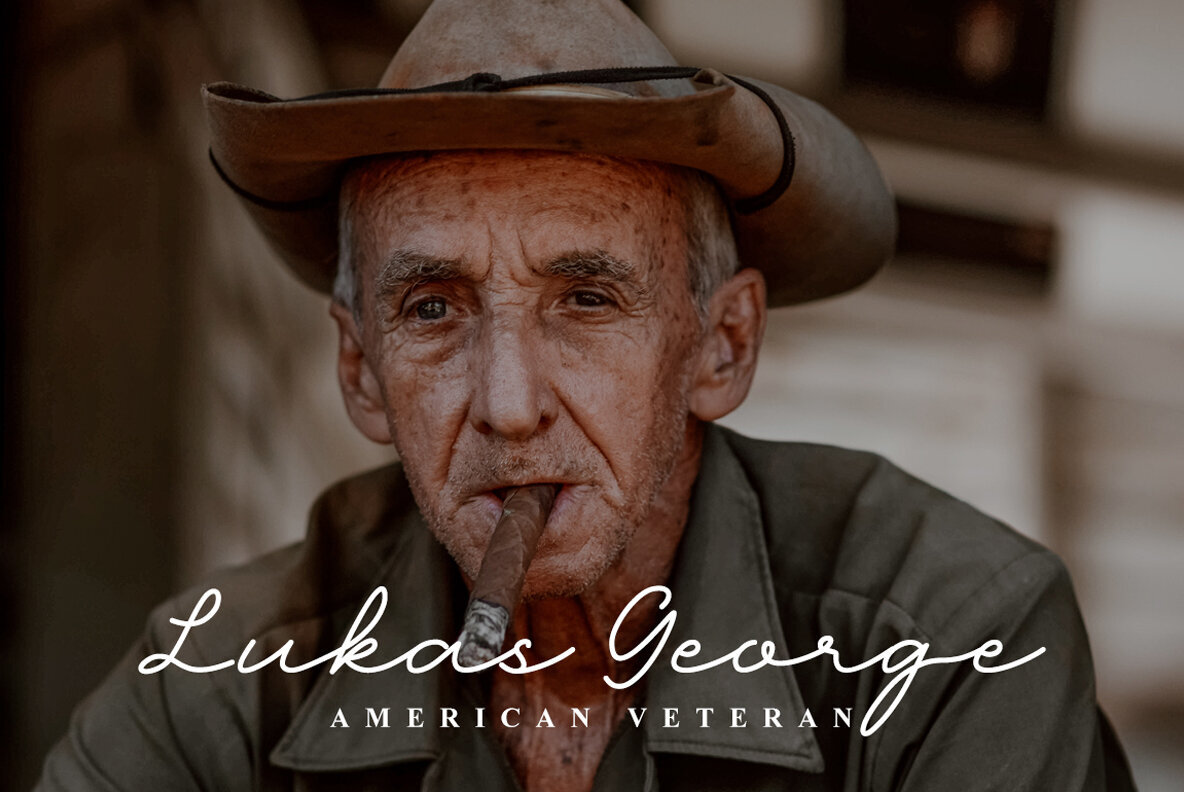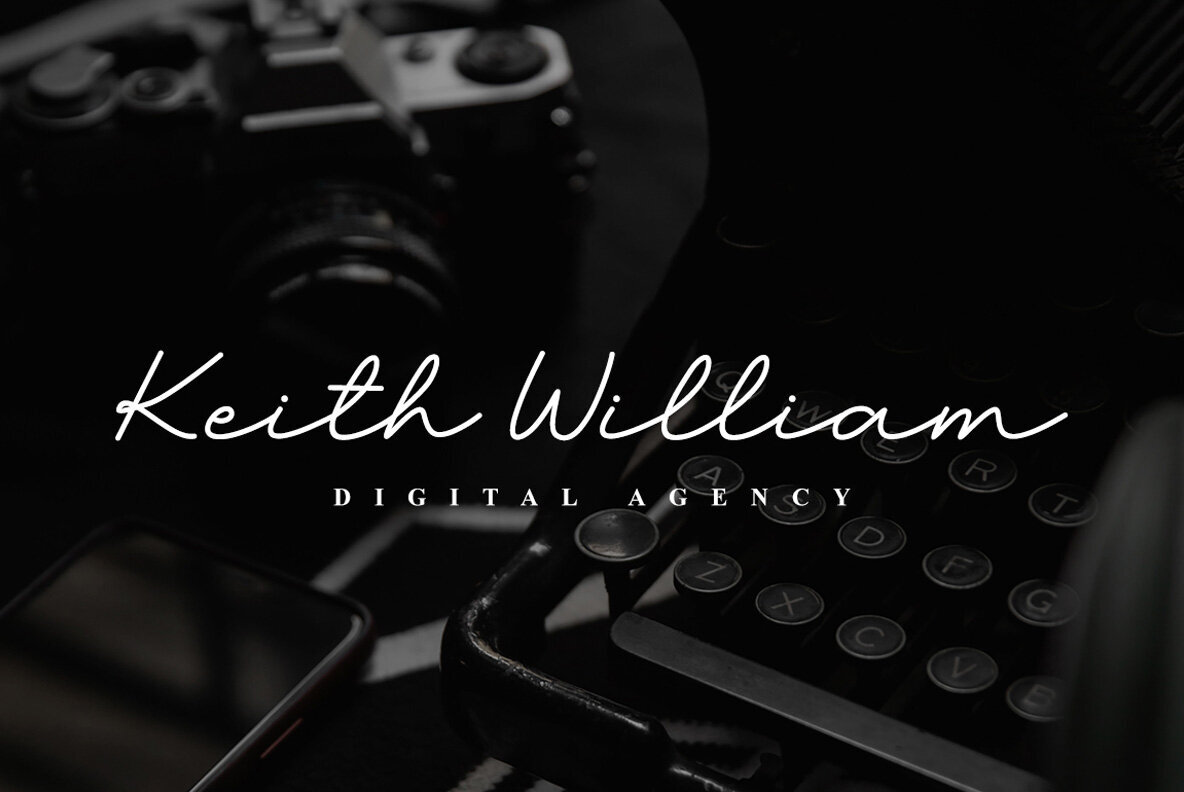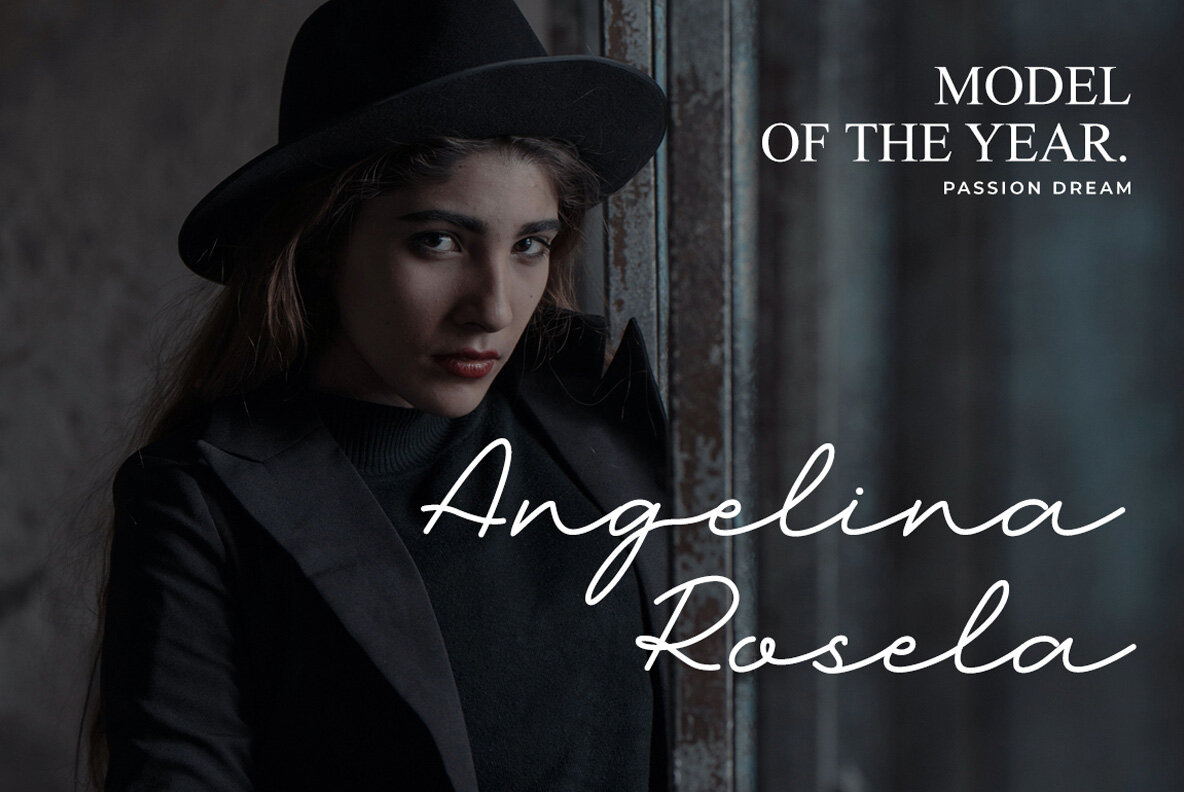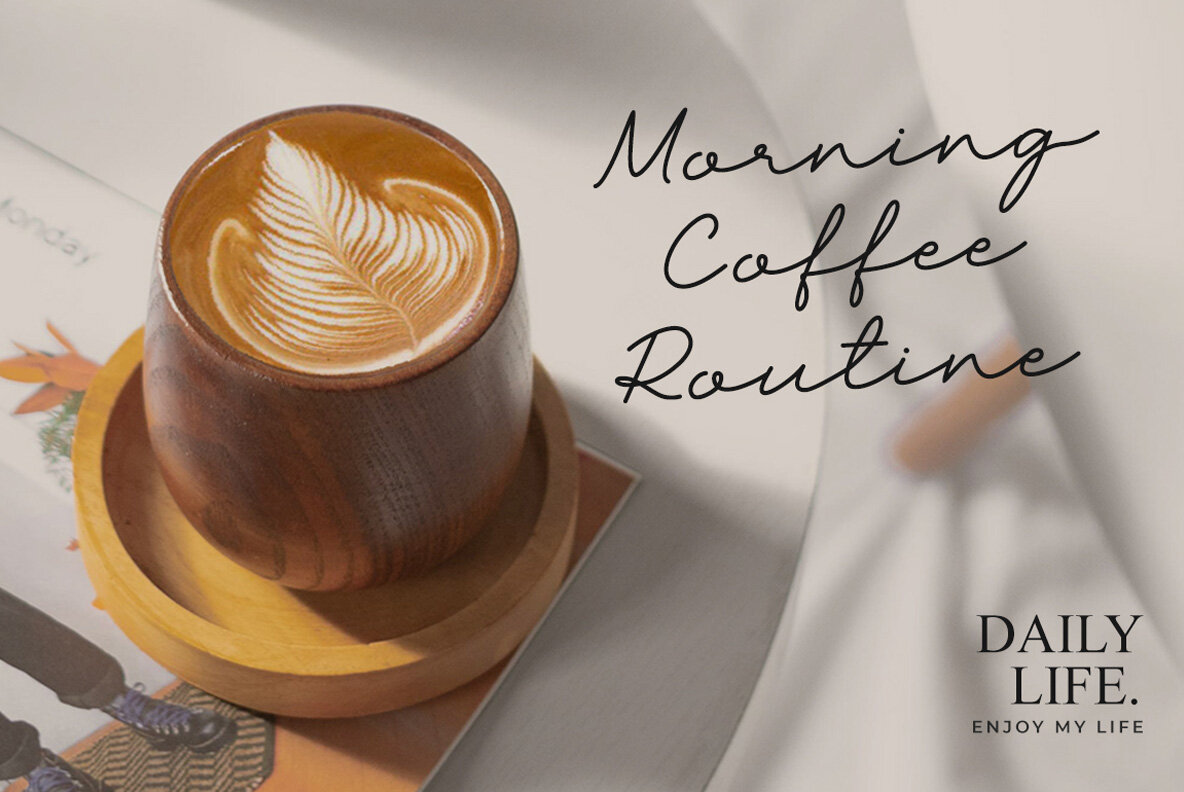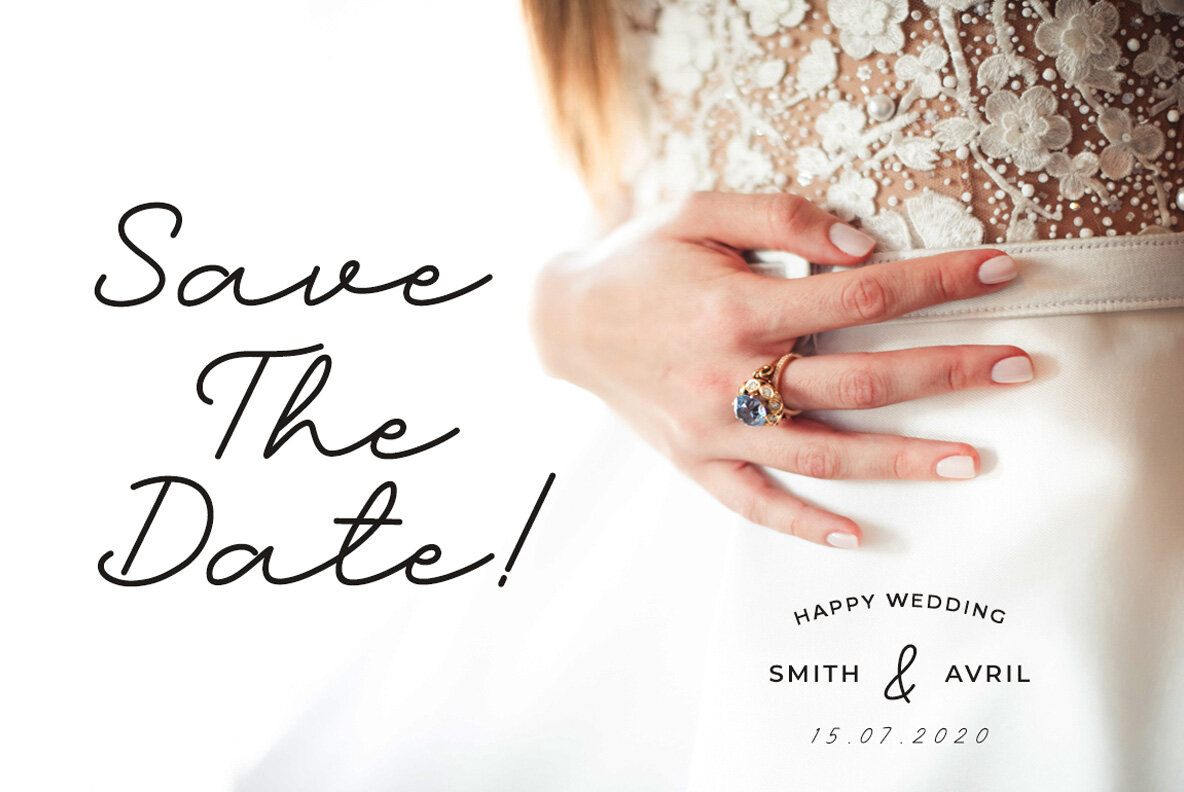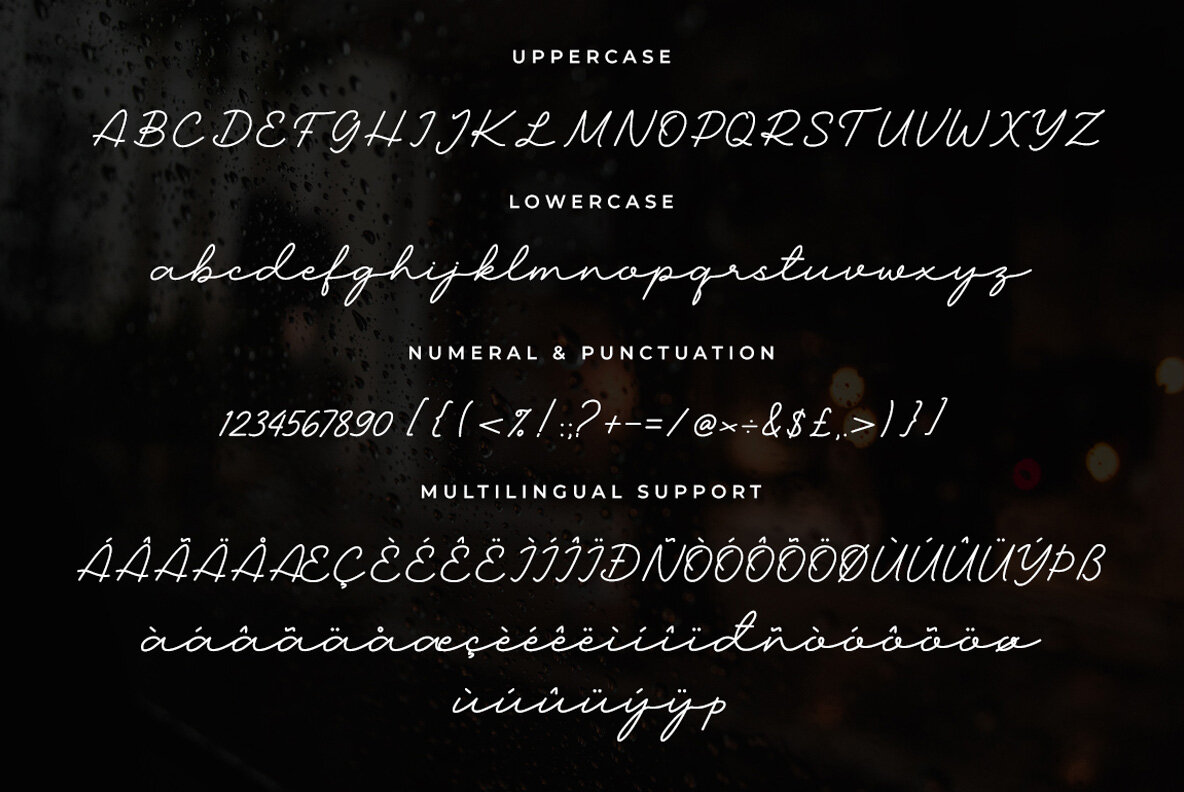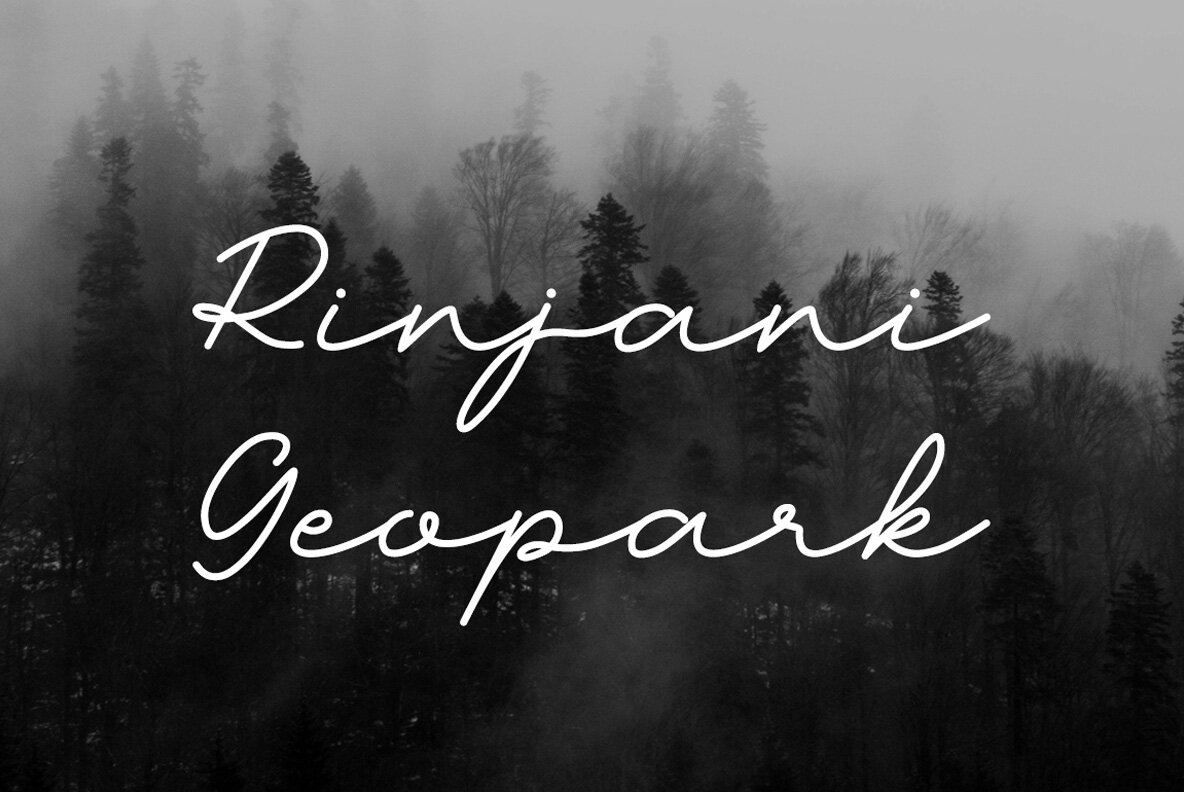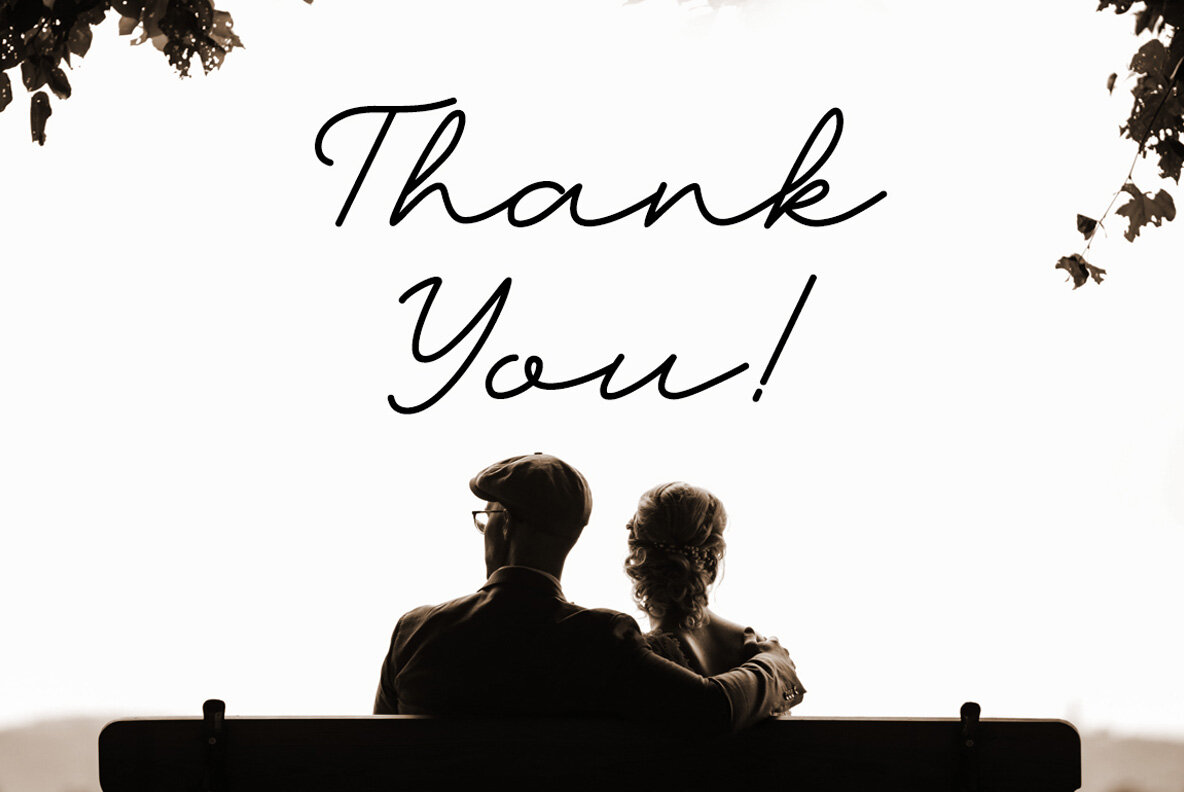
Madore Font
Madore
Madore is an elegant, flowing handwritten script. It maintains its classy calligraphic influences while feeling contemporary and fresh. This versatility will appeal to a wide range of crafty ideas, from letterheads and titles, to stationery.